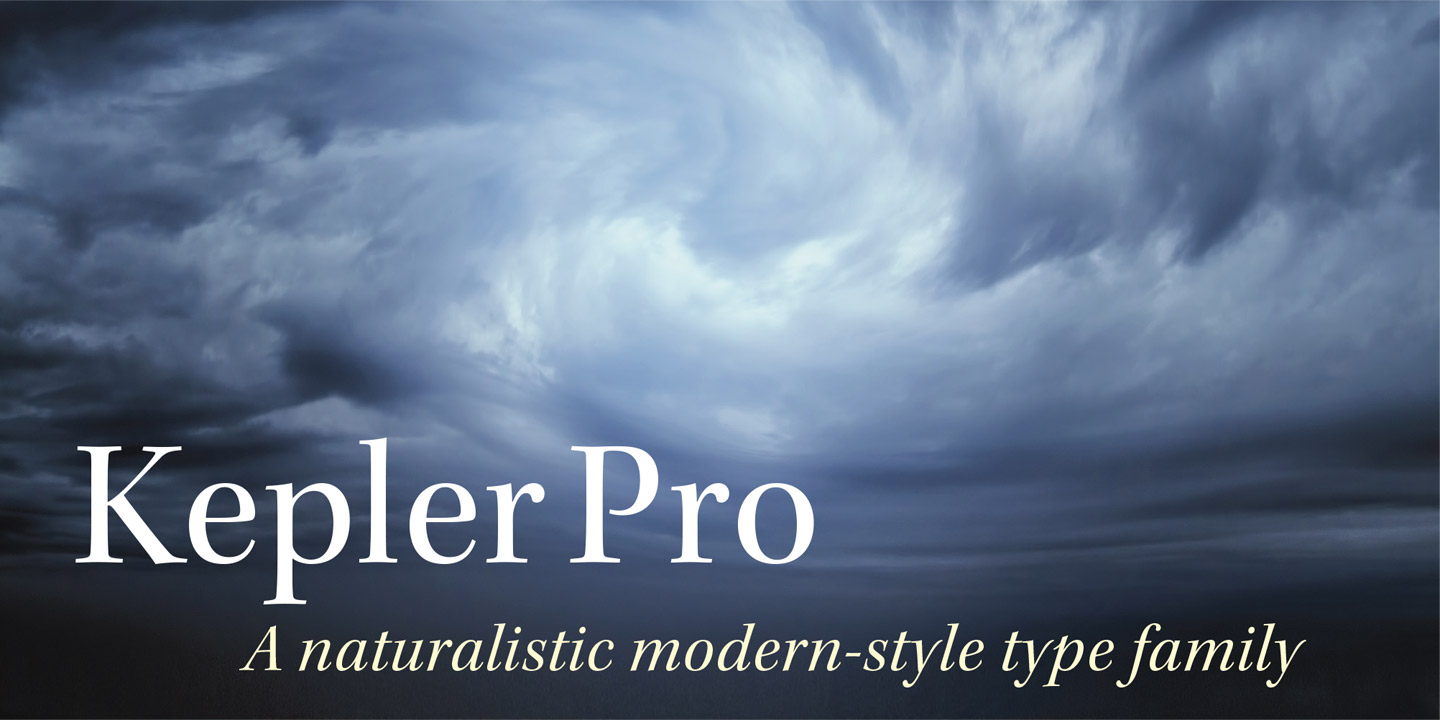
Kepler® Std Extended is a serif font family. This typeface has forty-eight styles and was published by Adobe.
Named after the German Renaissance astronomer, Kepler is a contemporary type family created by Adobe type designer Robert Slimbach in the tradition of classic modern 18th-century typefaces. Traditionally, modern typefaces are known for their cool intellectual quality, but Slimbach’s Kepler captures the modern style in a humanistic manner. It is elegant and refined with a hint of oldstyle proportion and calligraphic detailing that lends it warmth and energy.